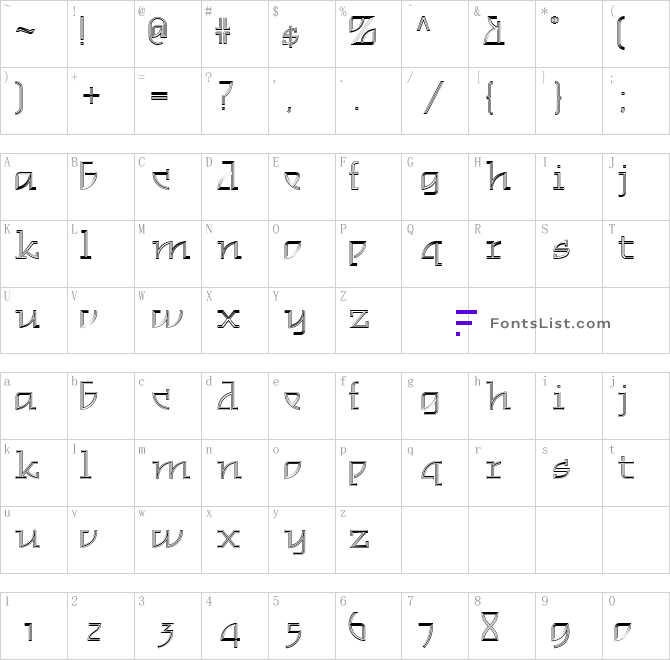
- Font Name:CambridgePinstripeNF
CambridgePinstripeNF.ttf is a very beautiful artistic font, CambridgePinstripeNF.ttf is widely used in the design and printing of various books and pictures,CambridgePinstripeNF.ttf has a strong visual impact,CambridgePinstripeNF.ttf is a commonly used font in newspapers, magazines and books, and is used in posters, e-commerce Poster design, store design, logo design, font design and other fields.CambridgePinstripeNF.